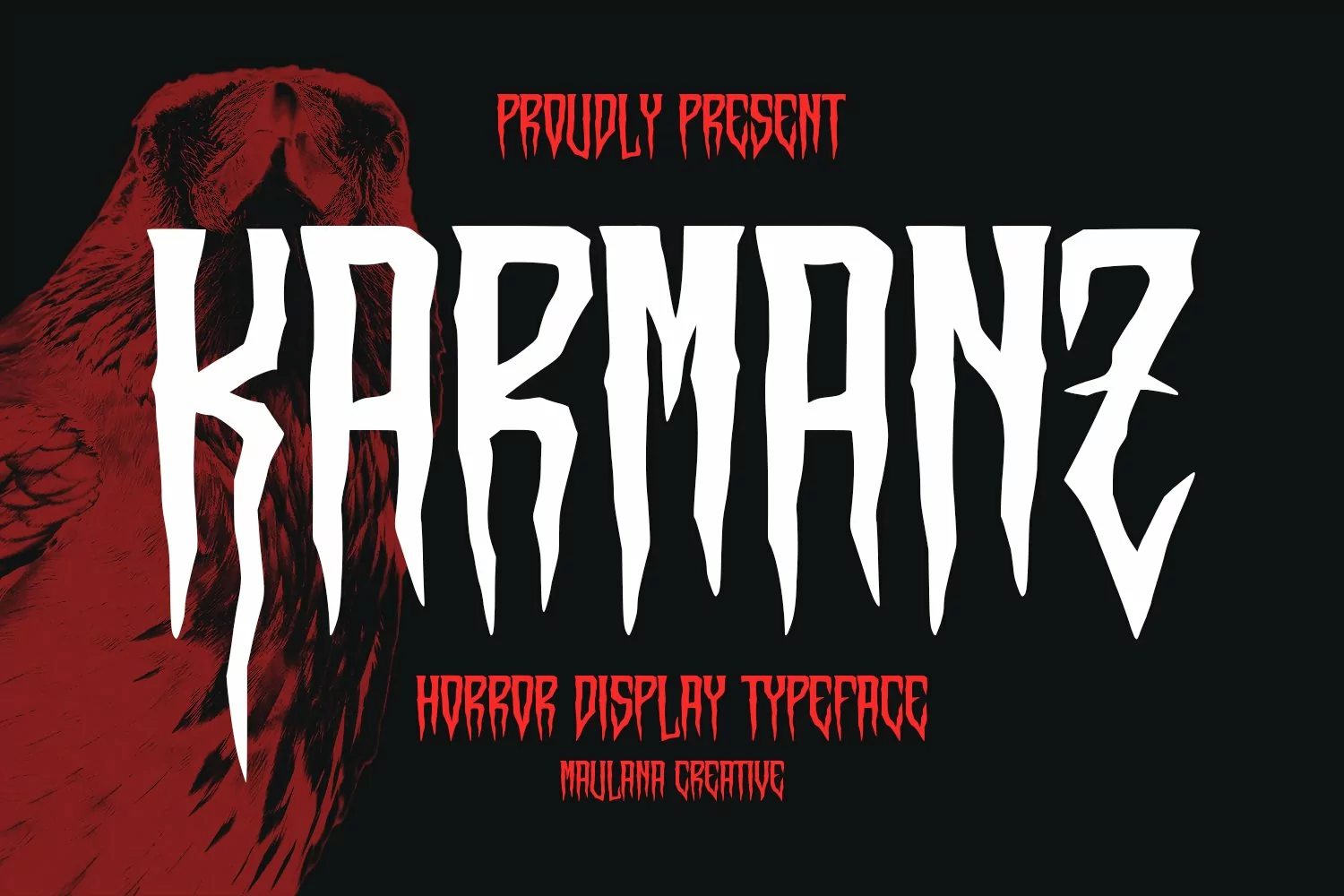
Karmanz display typeface. Bold stroke, fun character with a bit of ligatures and alternates. To give you an extra creative work. Karmanz display typeface support multilingual more than 100+ language. This font is good for logo design, Social media, Movie Titles, Books Titles, a short text even a long text letter and good for your secondary text font with script or serif. Make a stunning work with Karmanz display typeface.